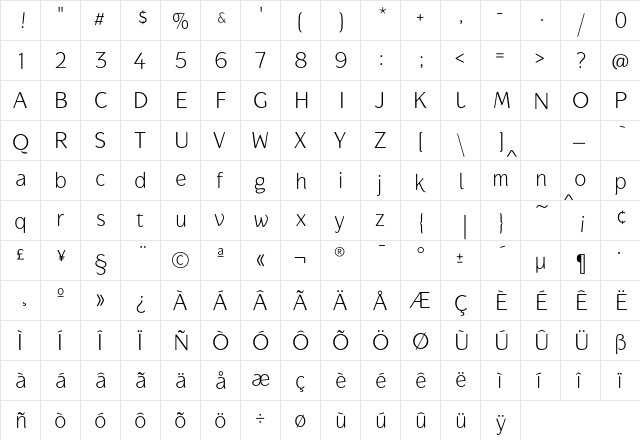
Gauntlet Thin Regular
| Foundry | Dimitri Castrique |
| Designer | Dimitri Castrique |
Design Context for Gauntlet Thin Typeface
Gauntlet Thin offers clean, dependable letterforms without strong stylistic allegiance, making it a practical choice for designers who need flexibility. Its slender proportions lend an understated elegance to any composition.